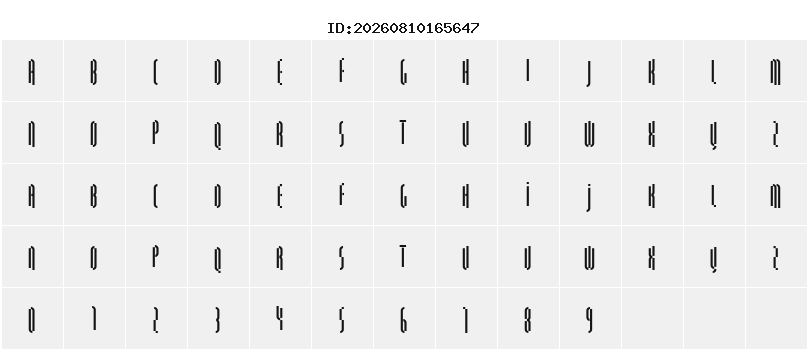
QuasariaLL Preview
• Font Name: QuasariaLL
About QuasariaLL.ttf
QuasariaLL.ttf is a modern, elegant sans-serif font designed for ultimate readability and visual harmony. Perfect for branding, headlines, web design, and print materials.